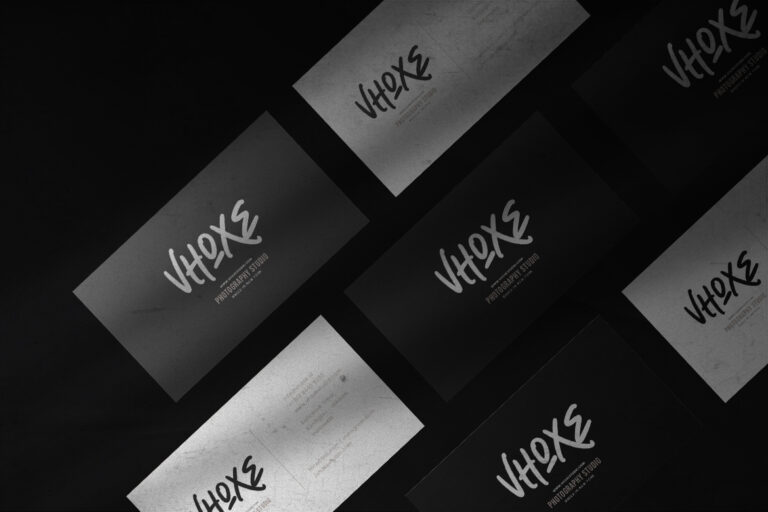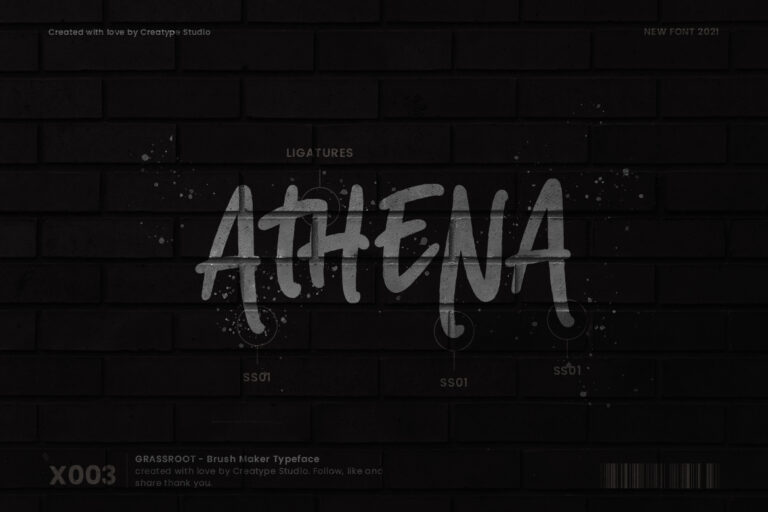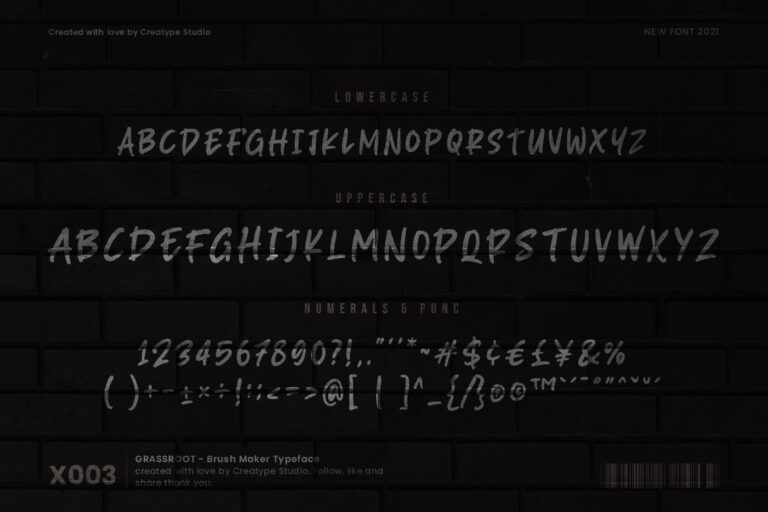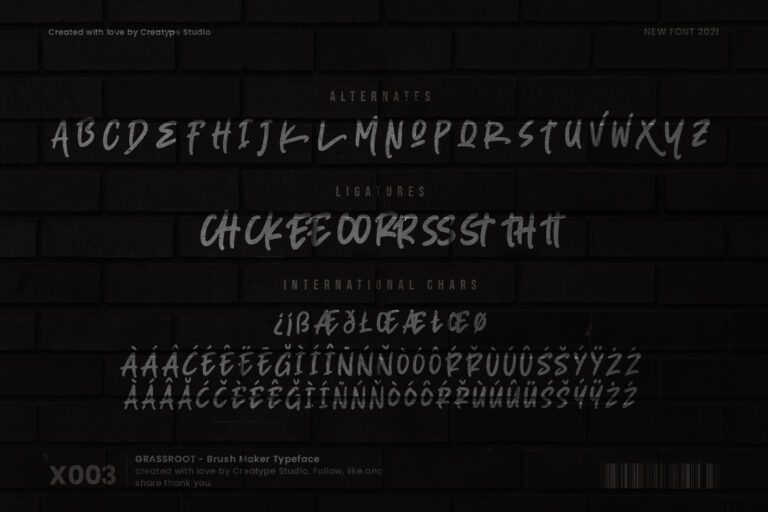
Grassroot Brush Maker
Grassroot is a brush maker typeface created by skilled hands to make this font look fabulous. This font looks really trendy and cool with its bold strokes.
Grassroot is perfect for branding projects, logo, wedding designs, social media posts, advertisements, product packaging, product designs, label, photography, watermark, invitation, stationery and any projects that need handwriting taste.
- Ton of glyphs
- Ligature & Alternate
- Fonts include multilingual support for; Afrikaans, Albanian, Czech, Danish, Dutch, English, Estonian, Finnish, French, German, Hungarian, Italian, Latvian, Lithuanian, Norwegian, Polish, Portuguese, Slovak, Slovenian, Spanish, Swedish.